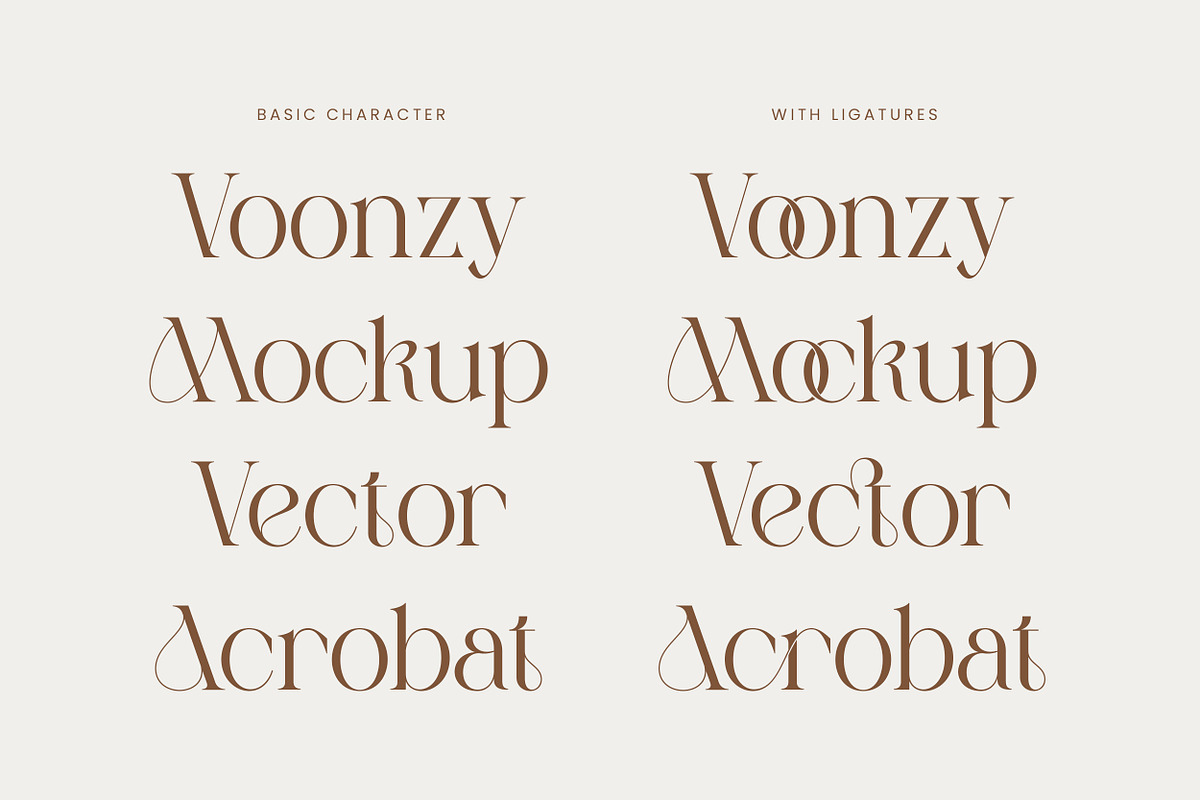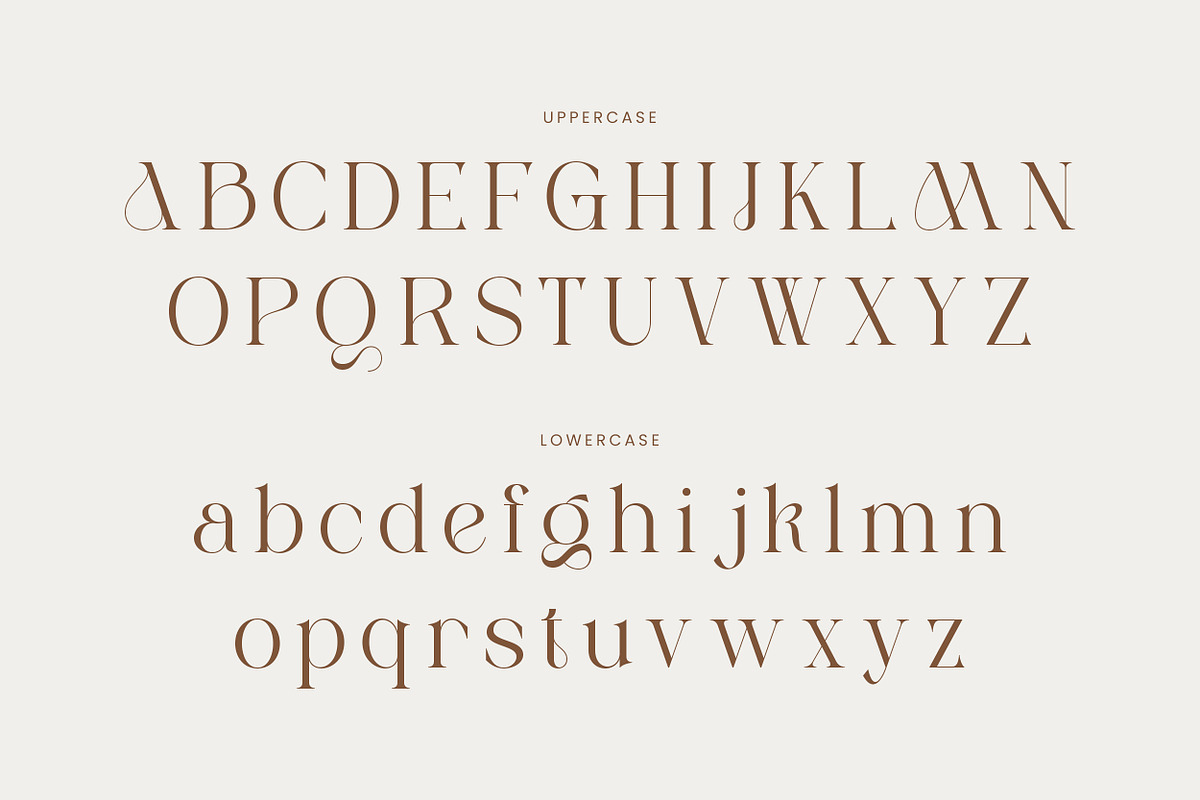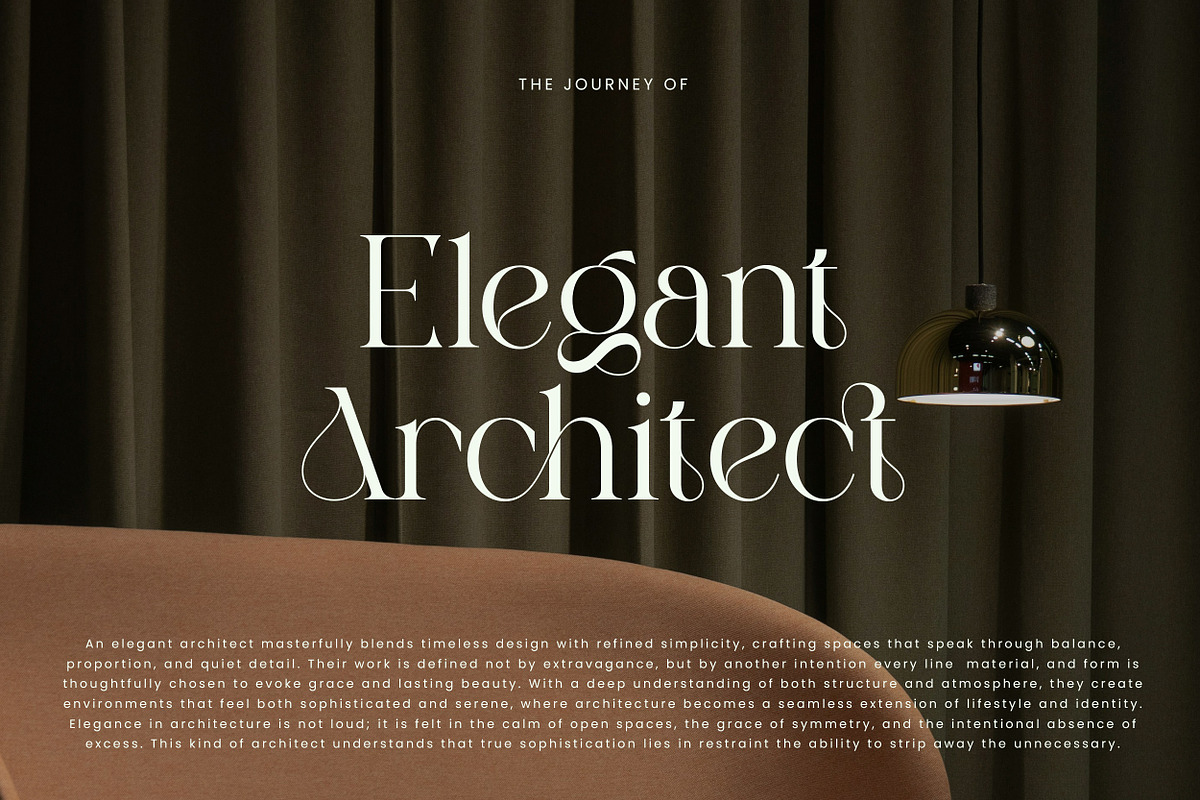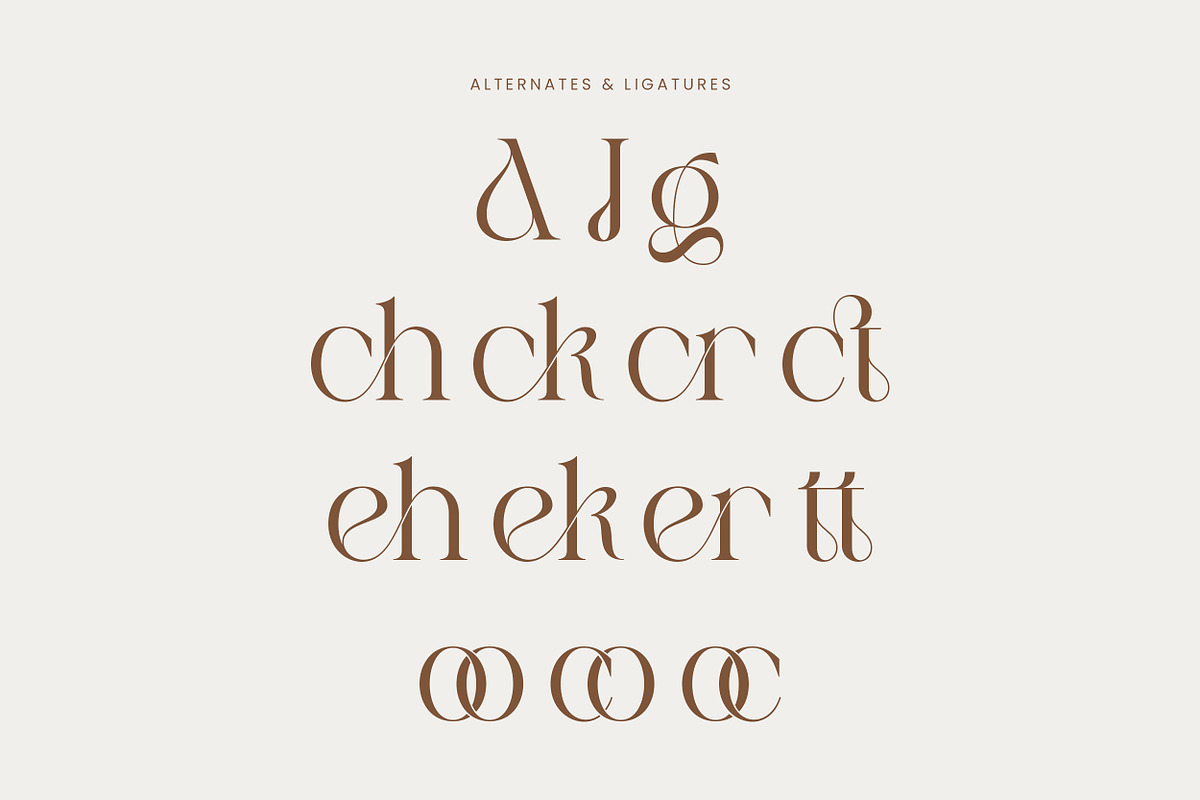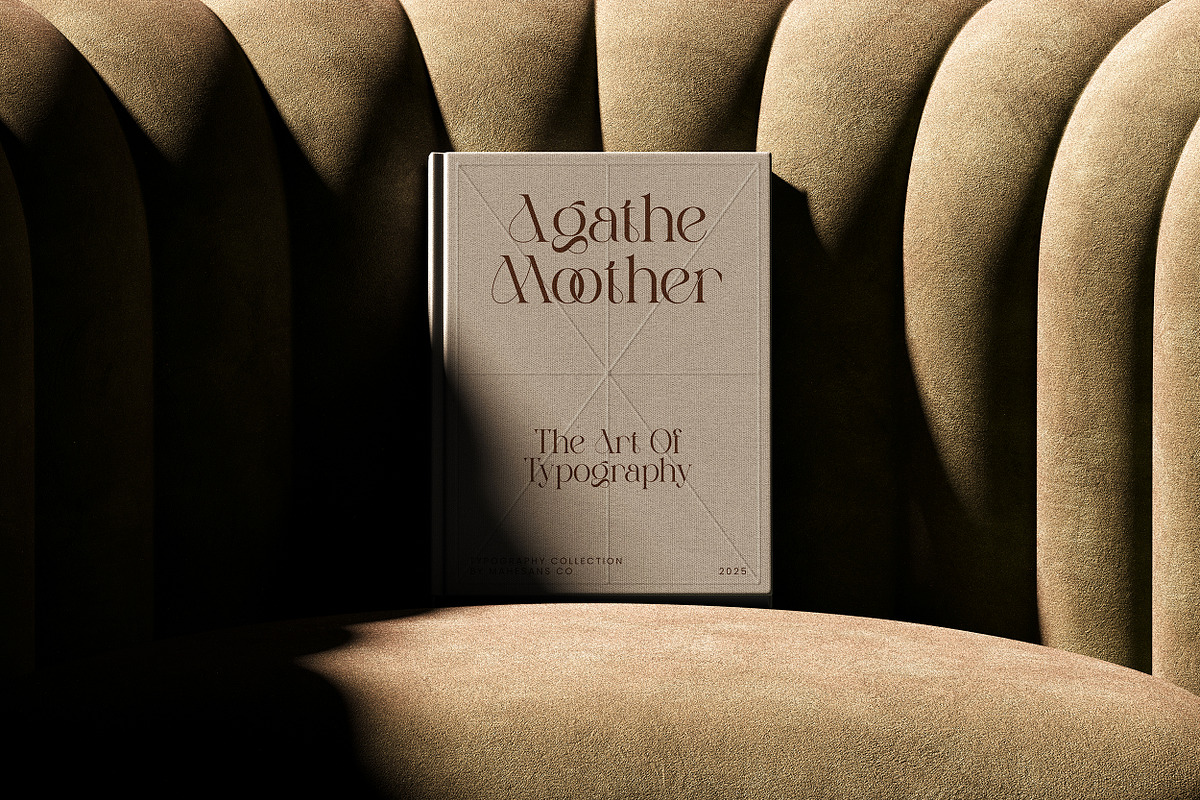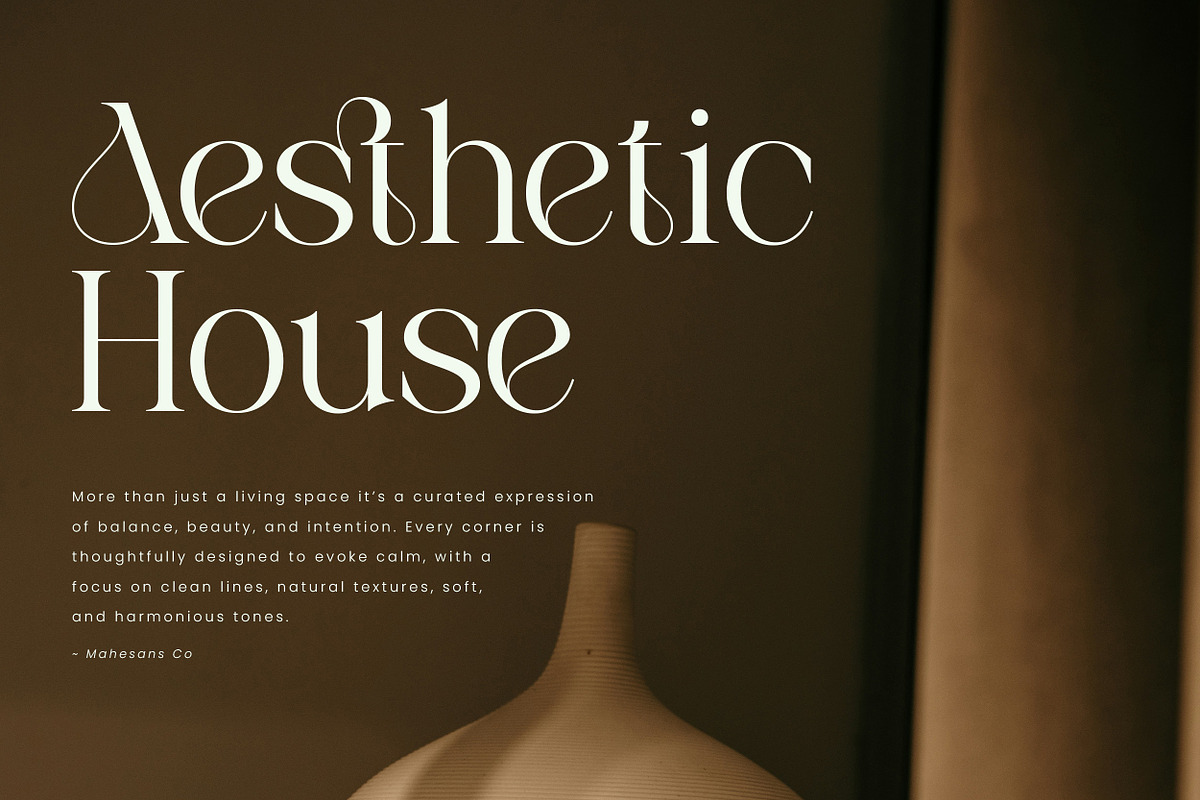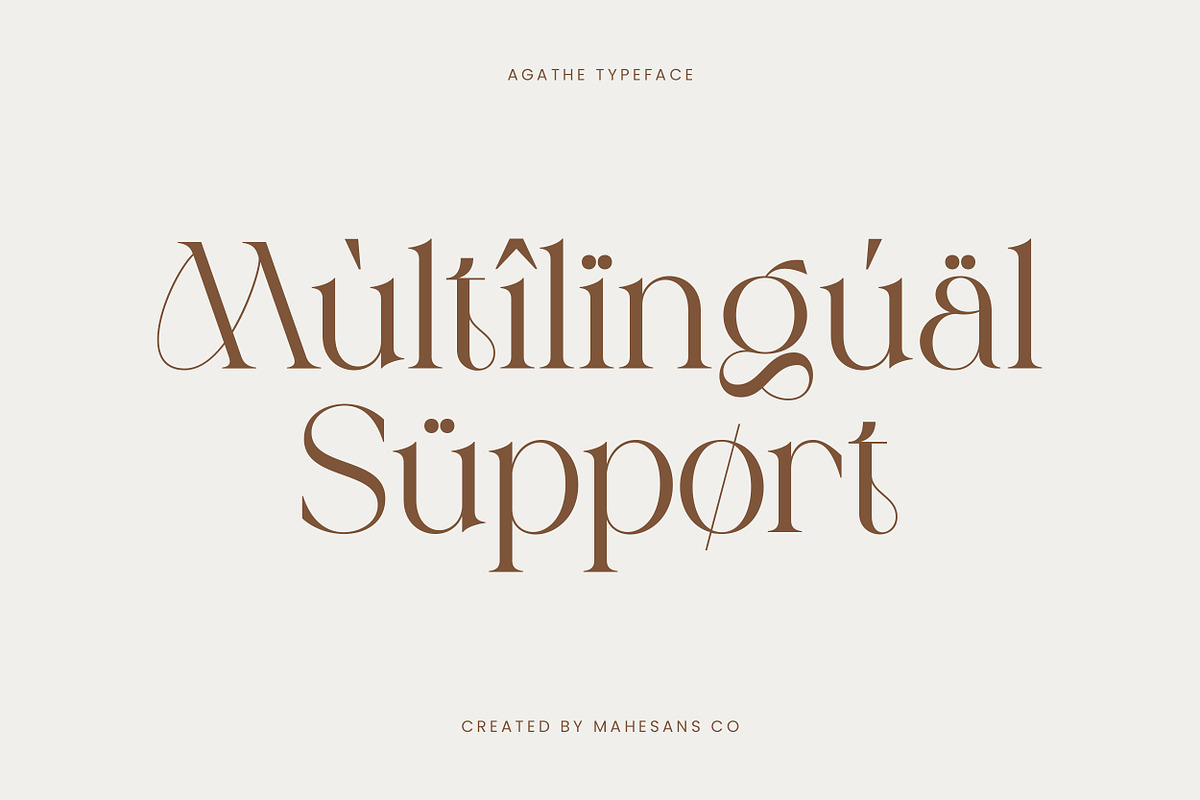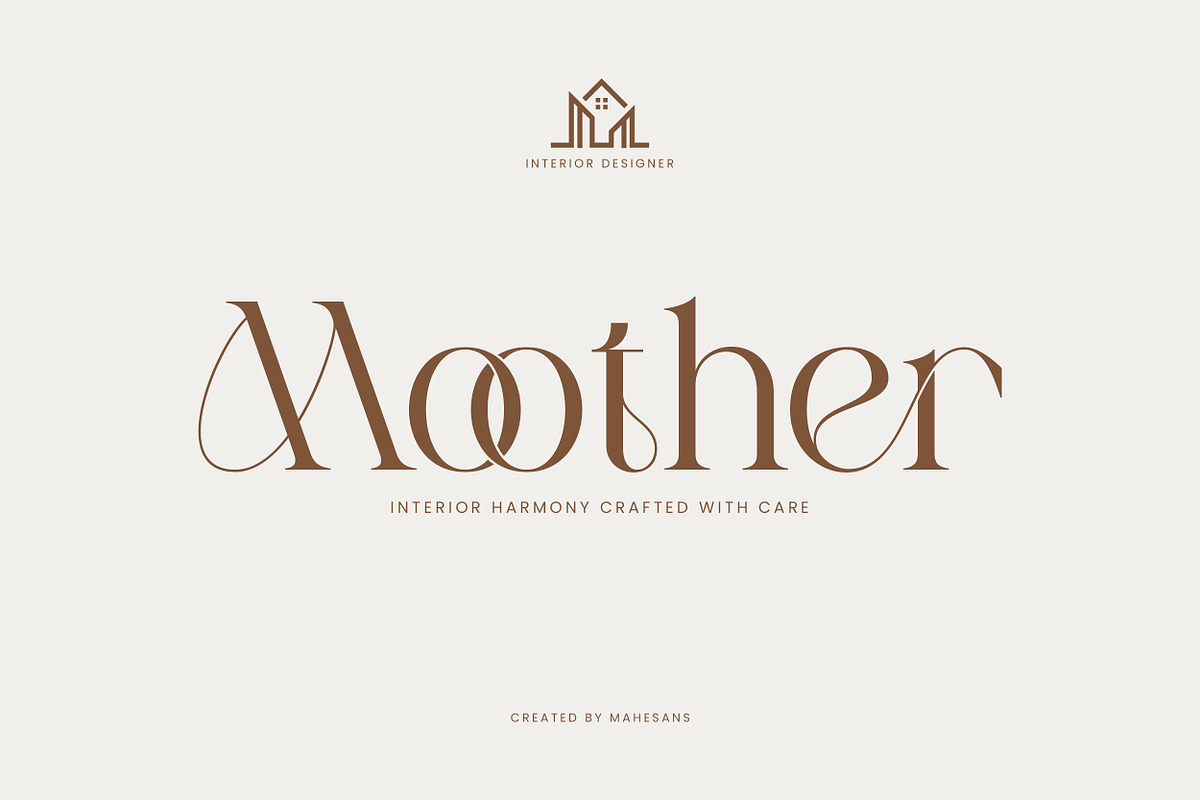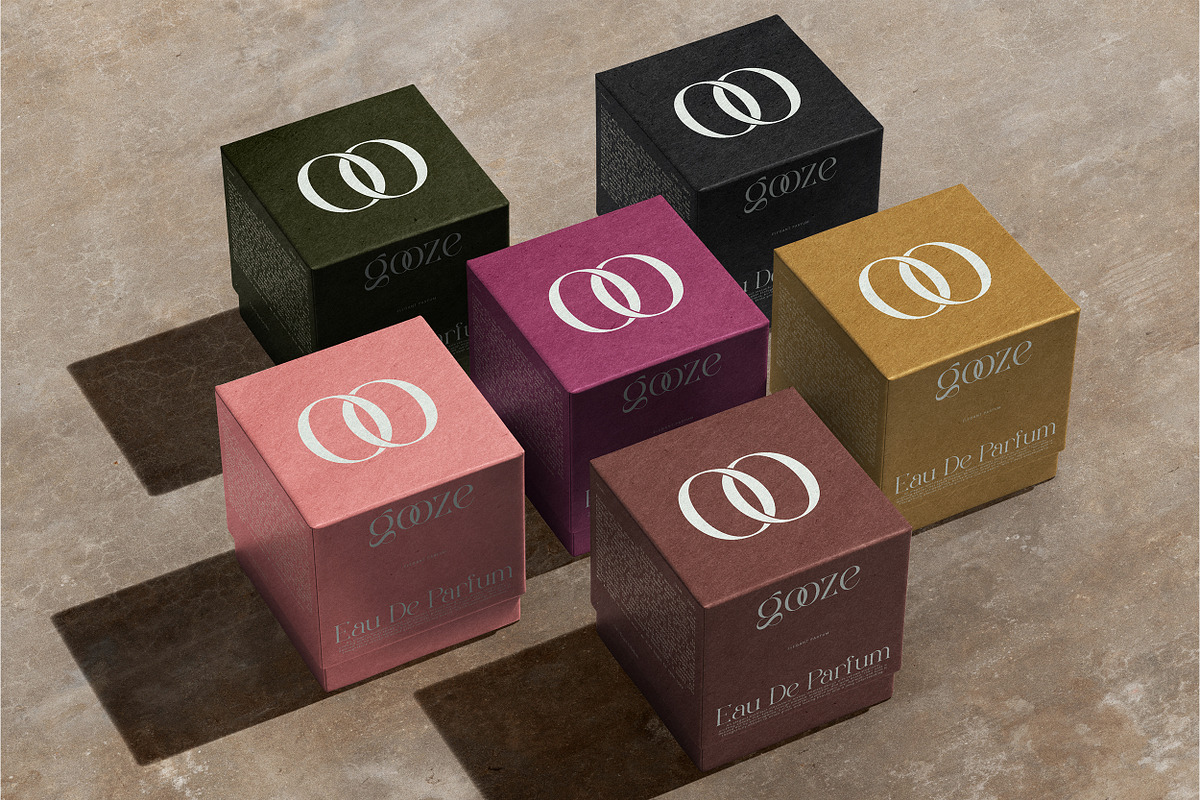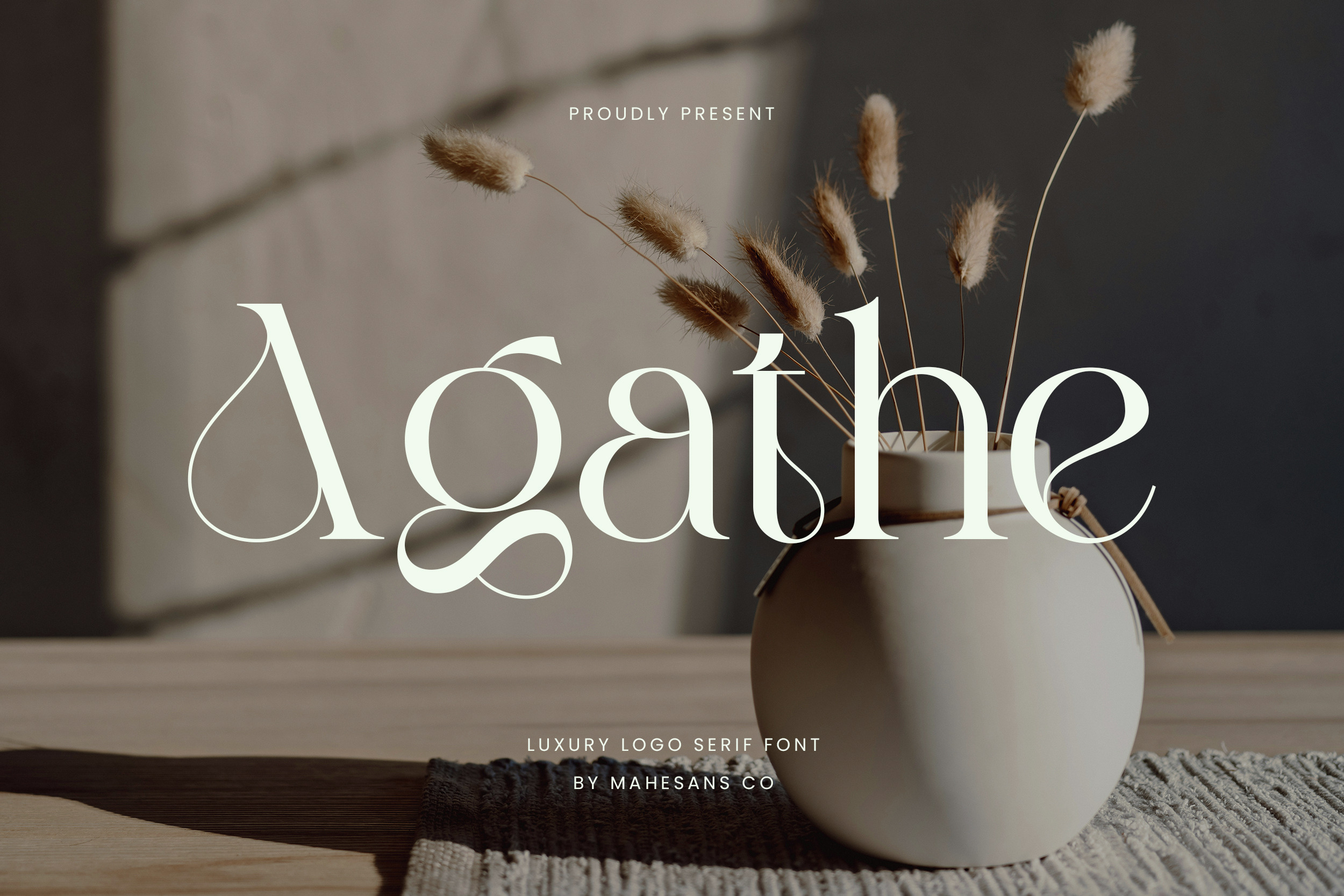
Agathe | Luxury Serif Font
Agathe is a high-contrast luxury serif font designed to bring elegance and modern charm to your creative projects. With its graceful curves, sharp serifs, and balanced thin-thick strokes, Agathe is perfect for branding, fashion editorials, packaging, and more.
It includes a collection of artistic alternates and stylish ligatures like “tt”, “cr”, and “oo”, giving you the flexibility to create unique and polished designs. Every detail is crafted to elevate your typography, making Agathe an ideal choice for logos, invitations, magazine titles, and upscale brand identities.